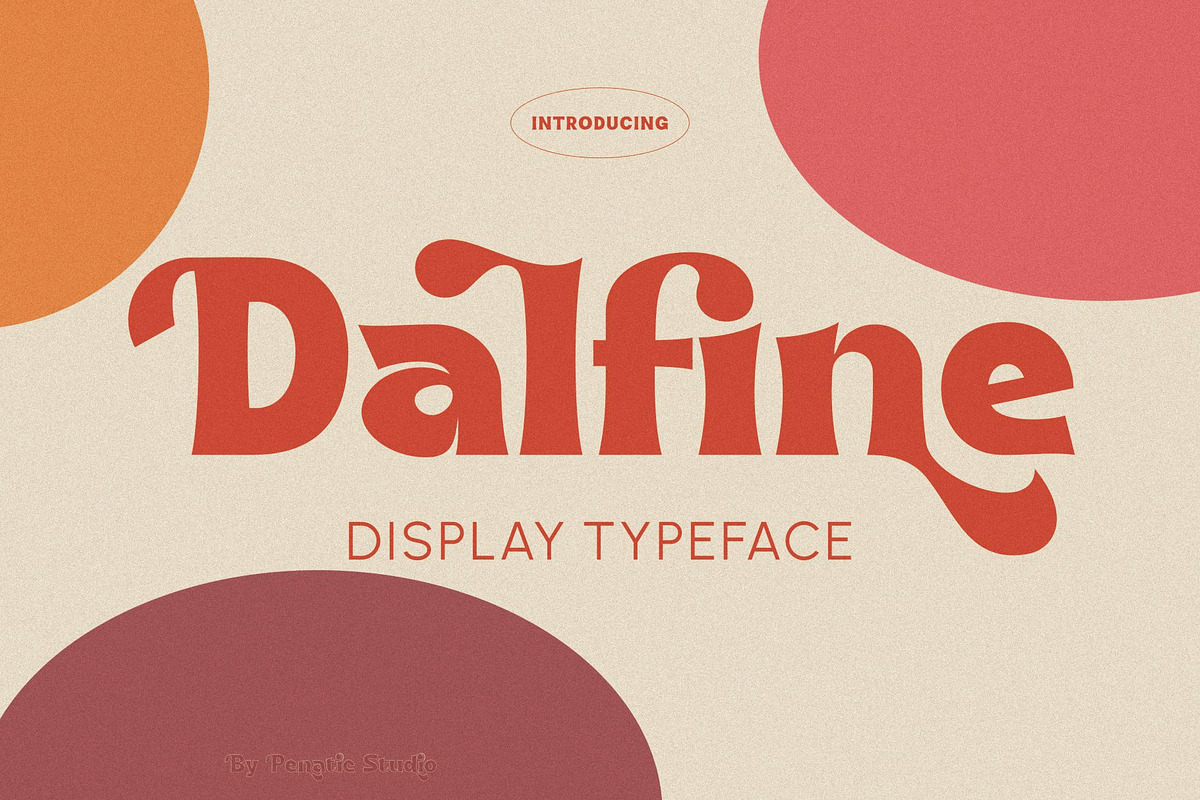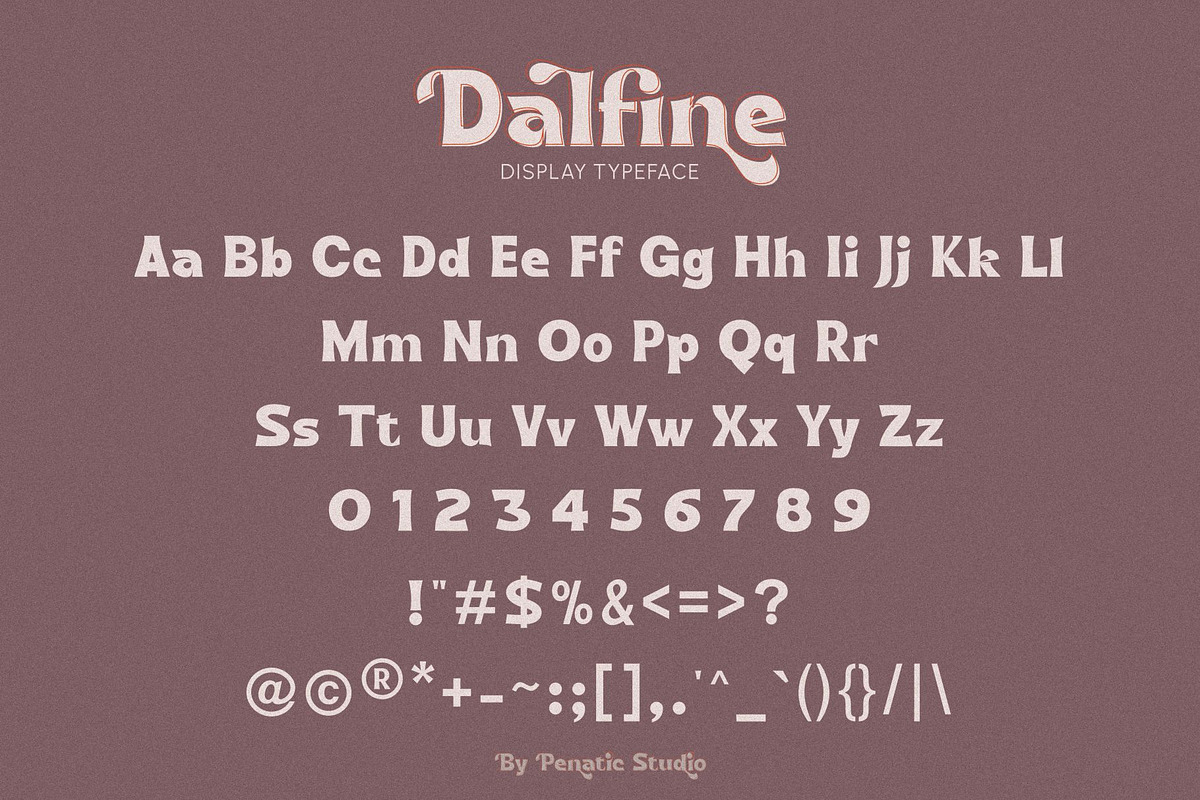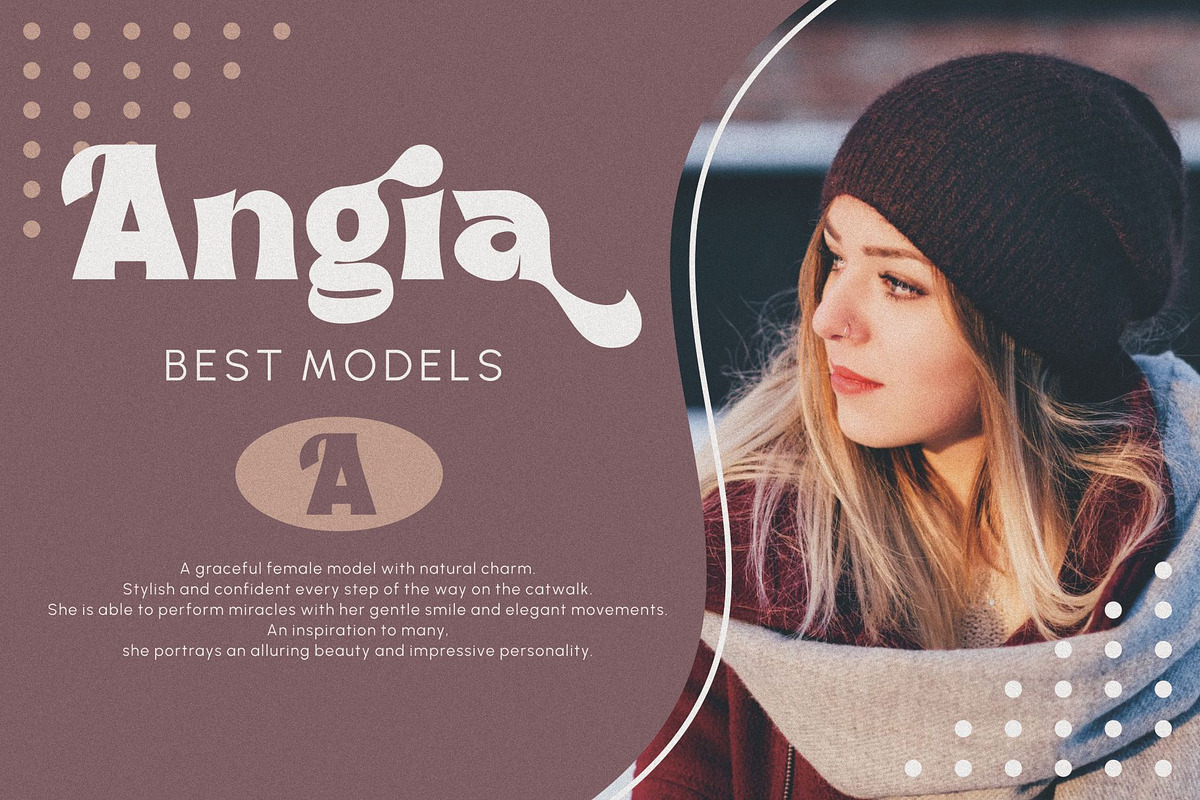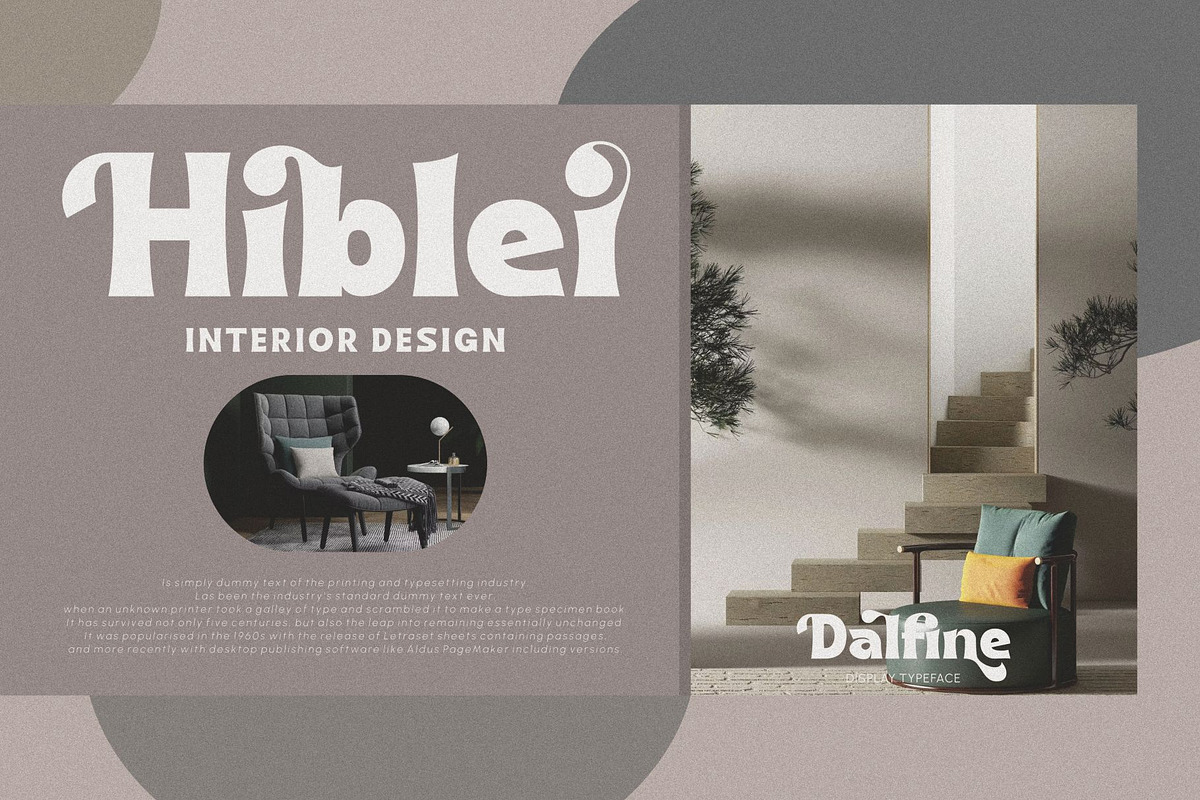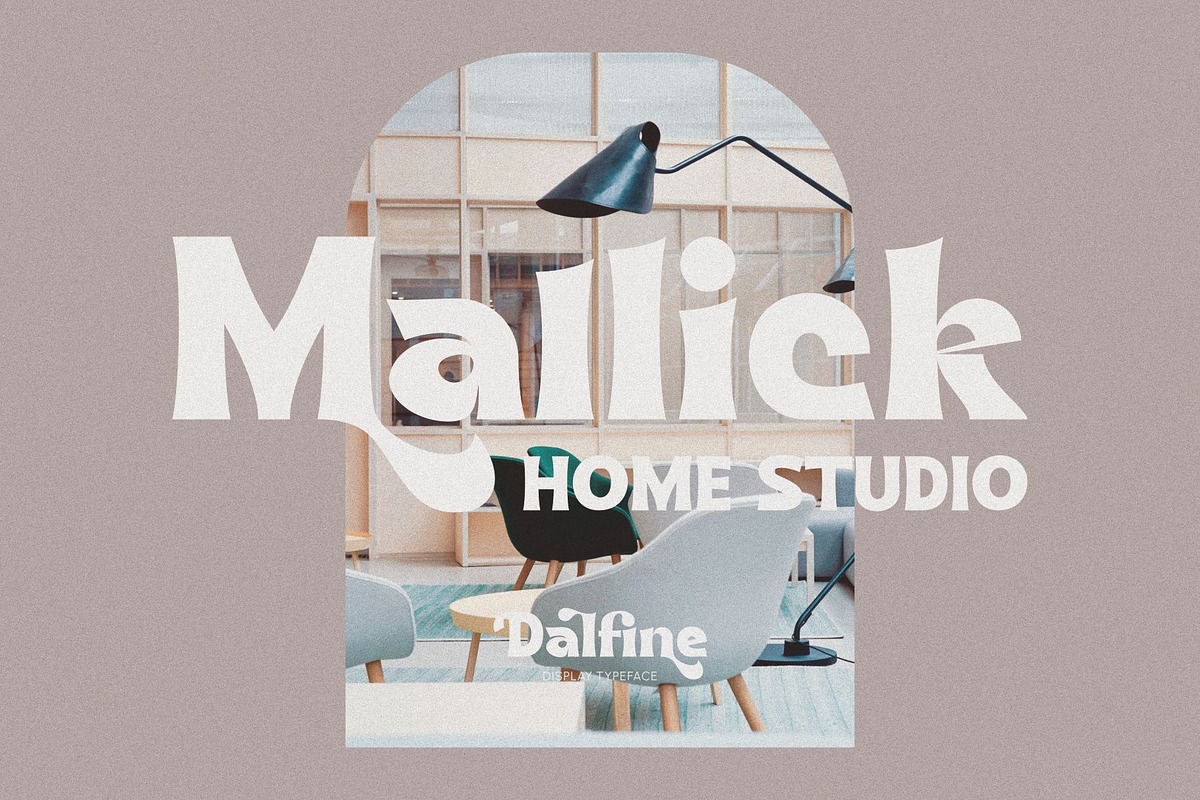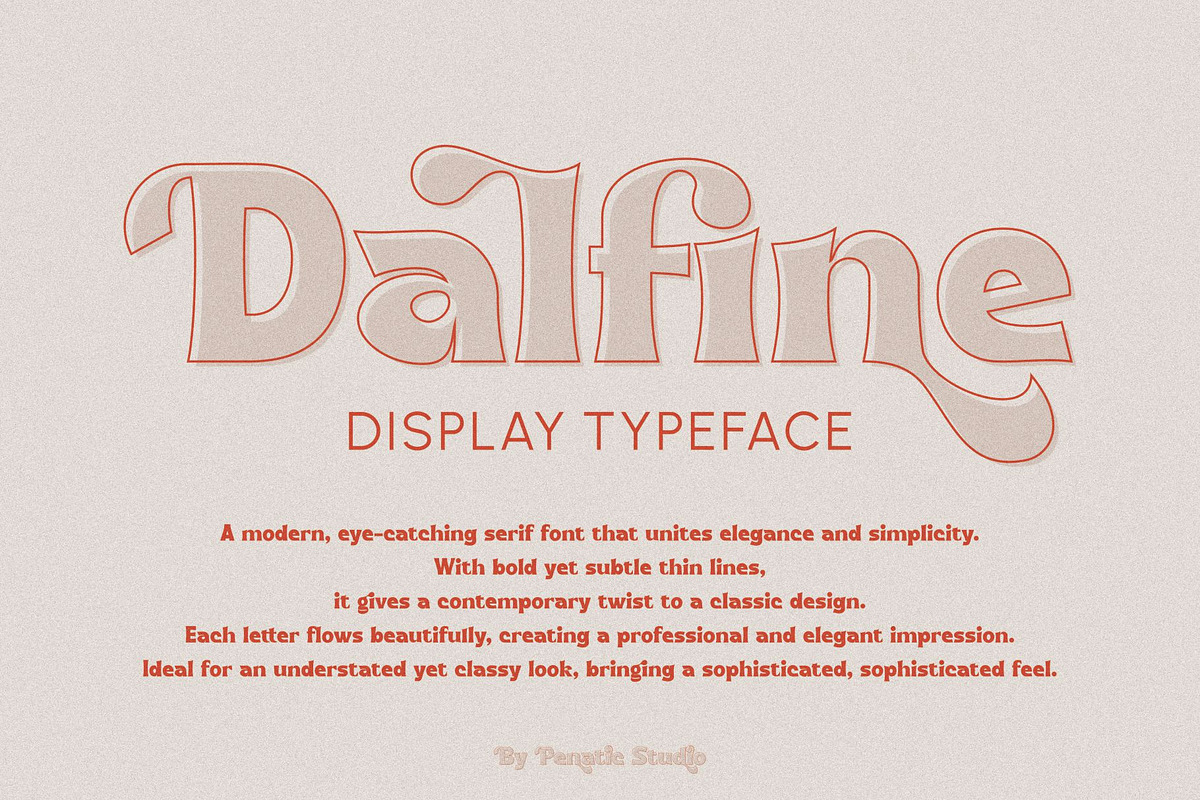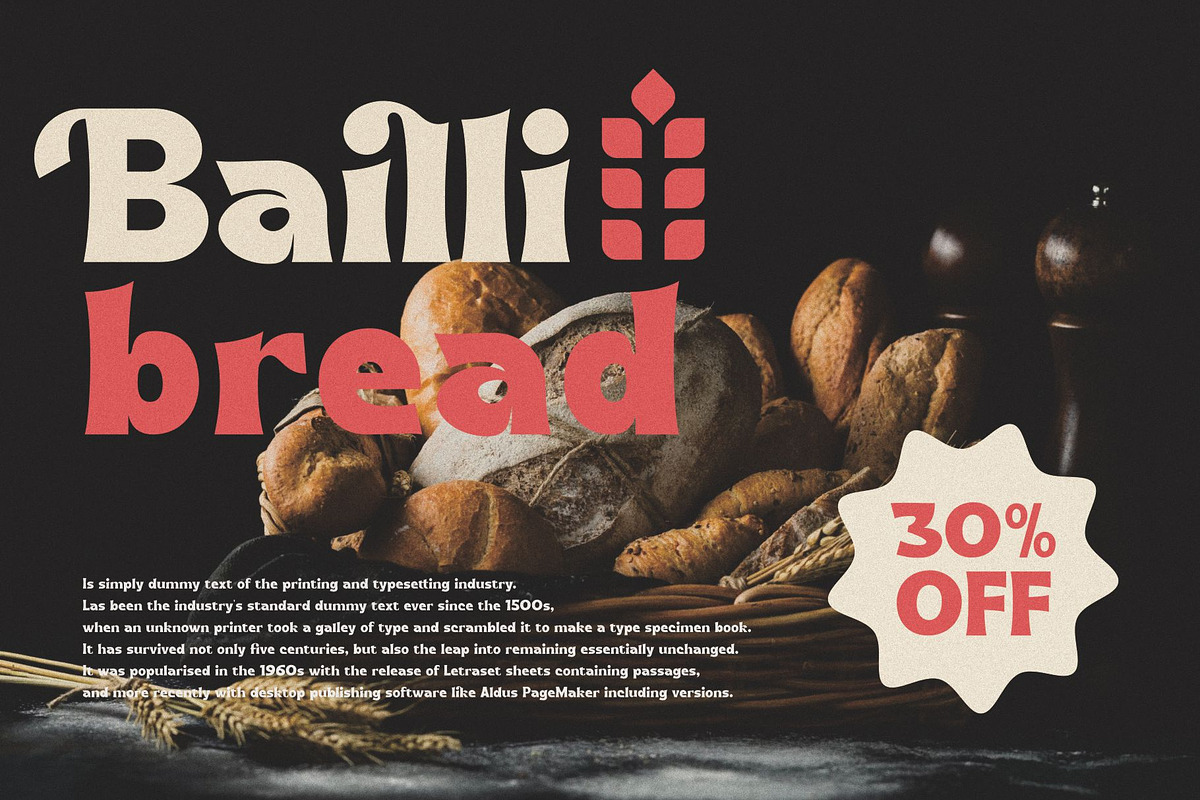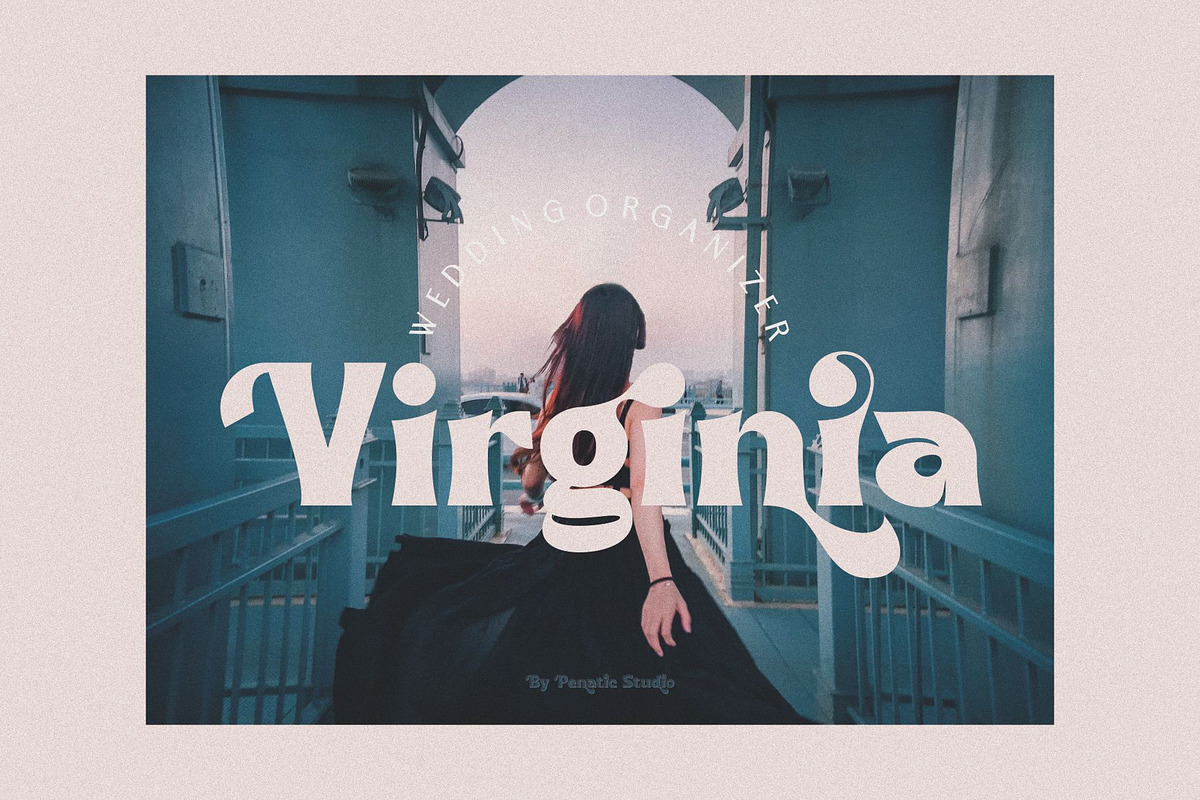
Dalfine Classic font
Dalfine is a bold display serif font that's jarring and captivating. Each letter grabs attention with boldness and boldness. Thick and bold lines create a strong and impressive impression. Perfect for titles, posters or display designs that require great visual appeal.
~ Unique Fonts Ligatures and Alternate